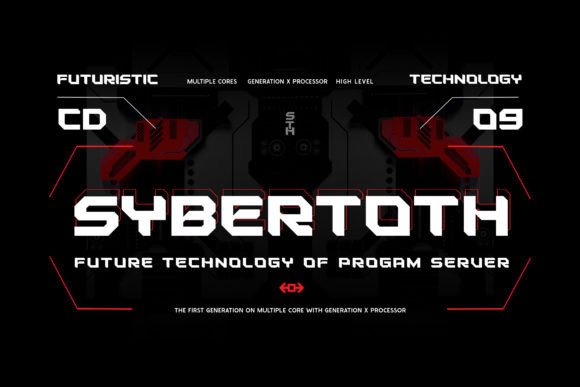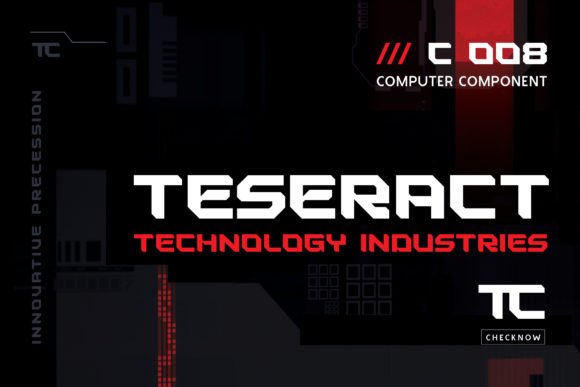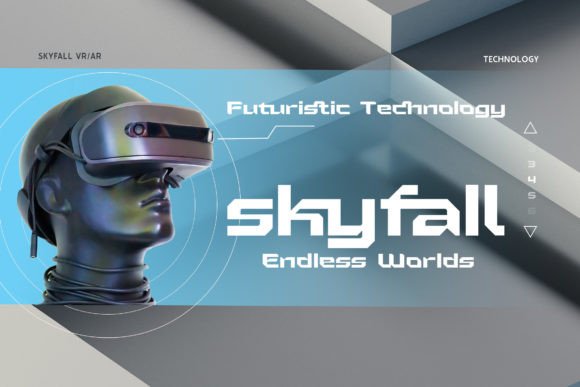
Introduction to Futurina Font
Futurina – Techno Futuristic / Sci-fi Game Font – Bold / Black Display Sans Serif Futurina is perfect for your upcoming projects such as logo branding, editorial design, export design, 80s retro design, game/gaming industry, sports racing, supercar brand, music poster, website design, modern advertising design, poster quote, book/cover title, special events, and more.
👤 Author Typia Nesia
Key Features of Futurina Font
Why Choose Futurina Font?
Futurina Font offers exceptional quality and versatility, making it a valuable addition to your design toolkit. Whether you’re creating for personal projects or commercial use, Futurina Font delivers professional results.